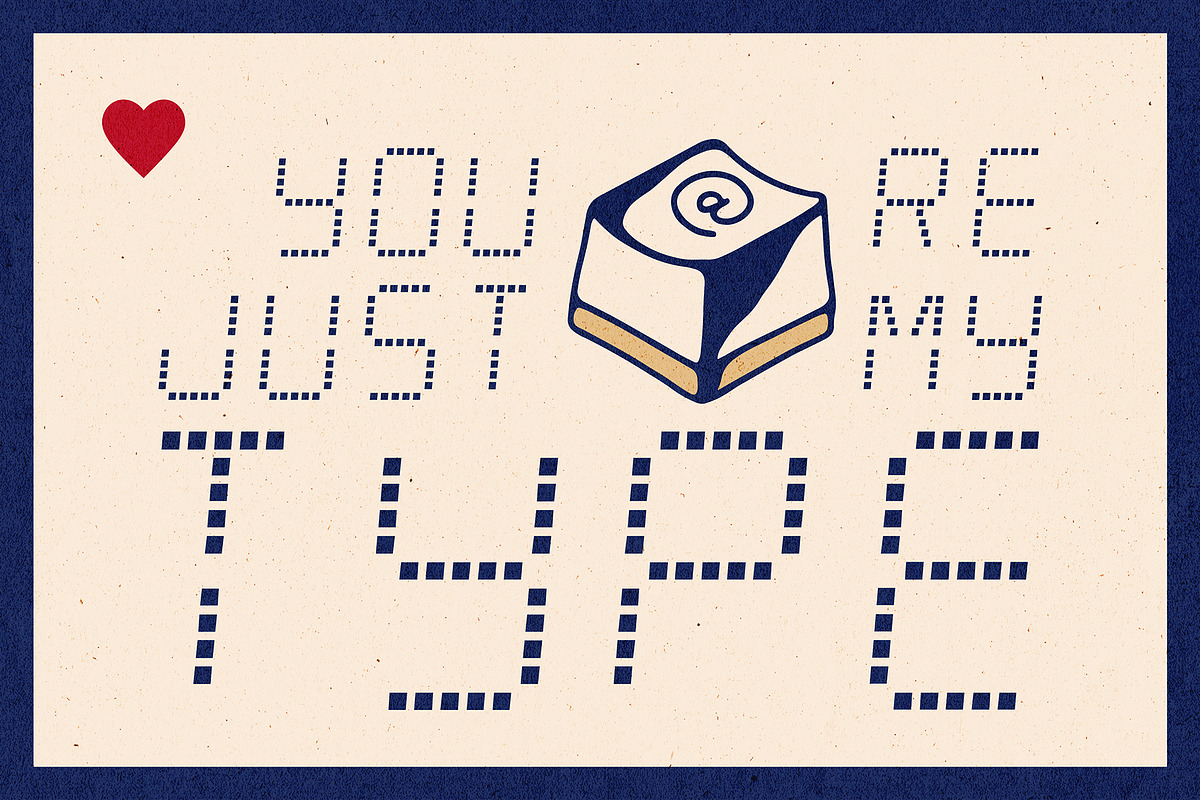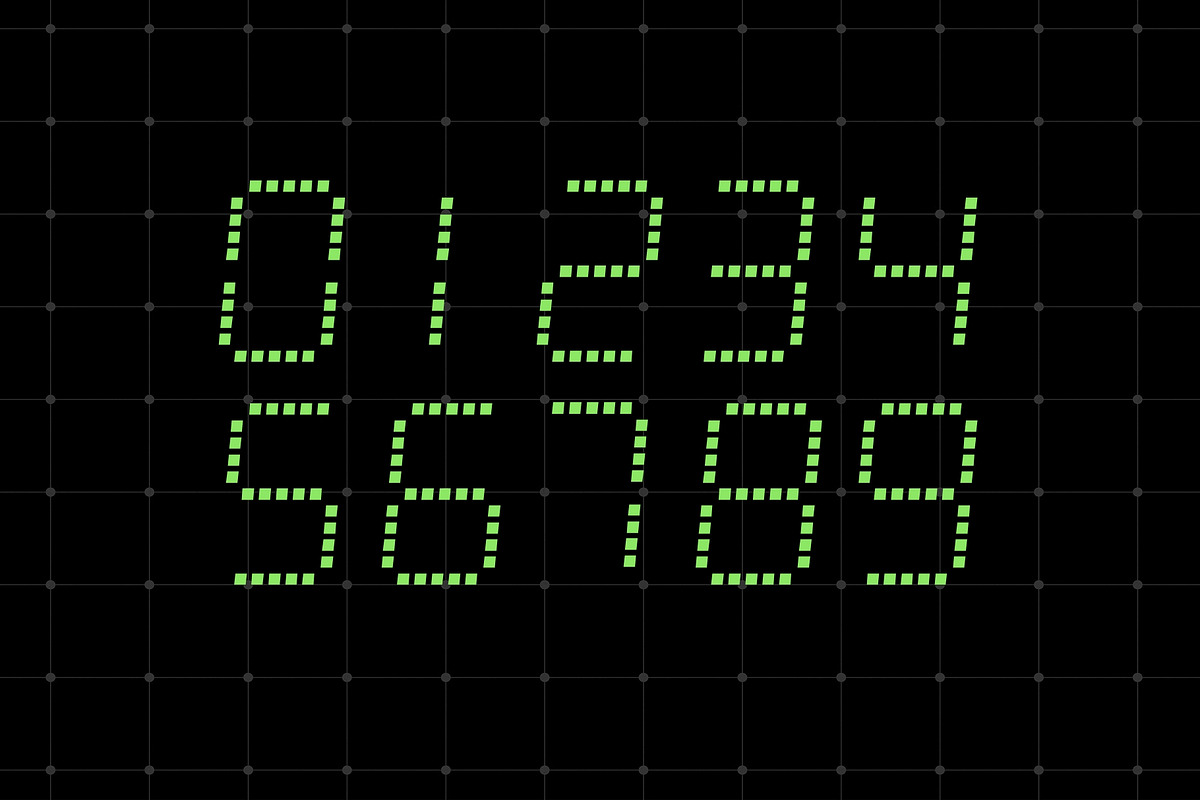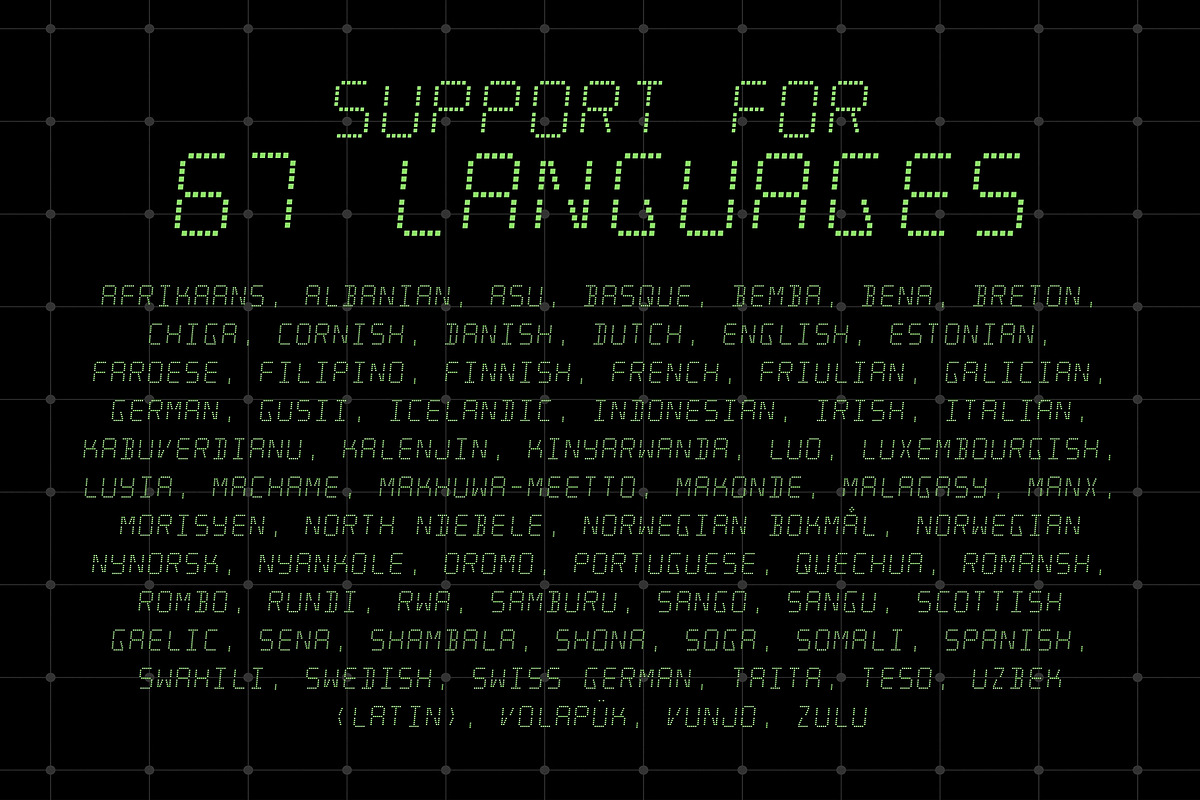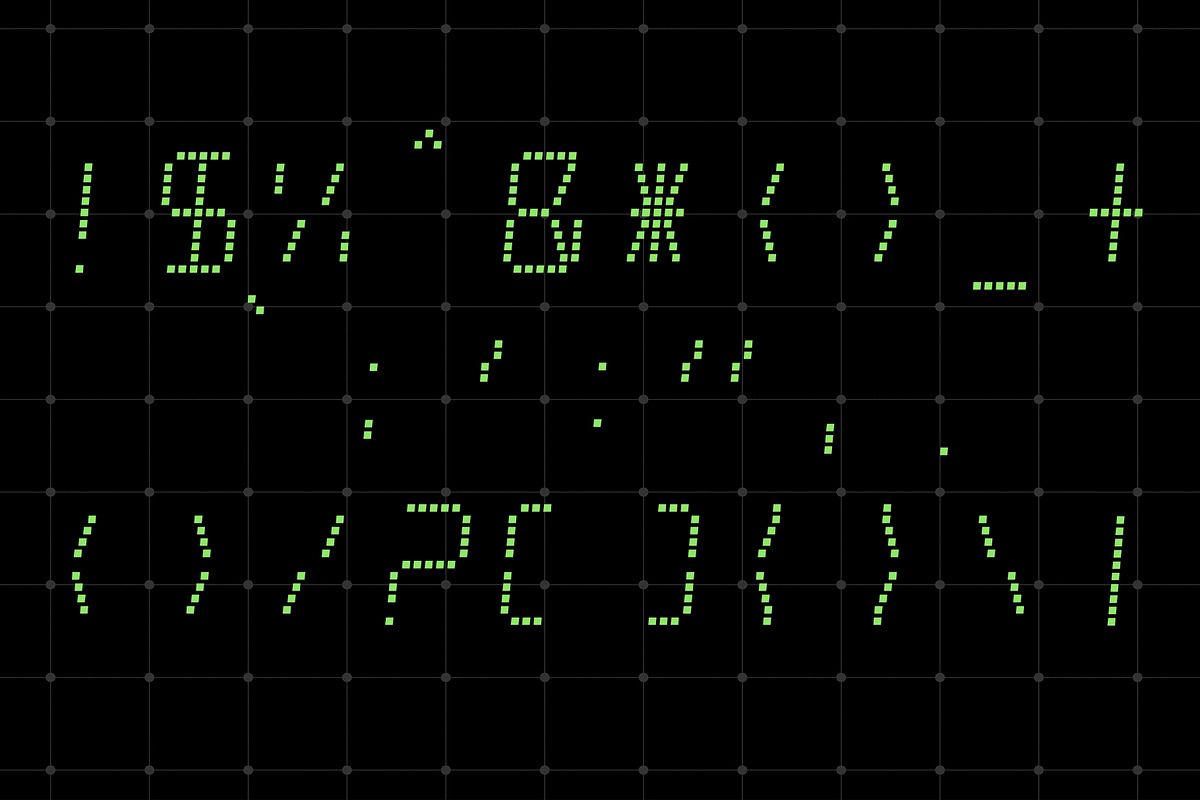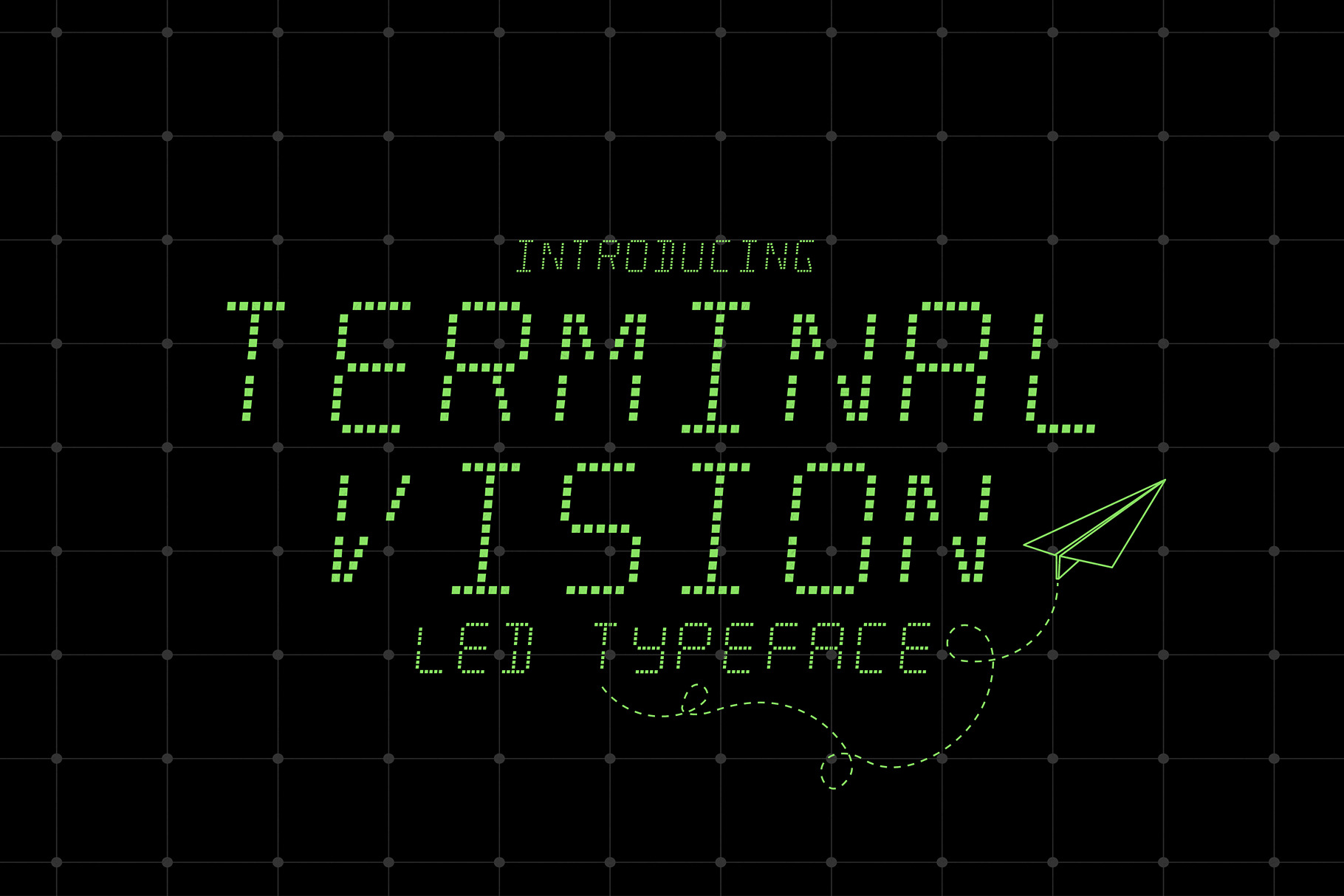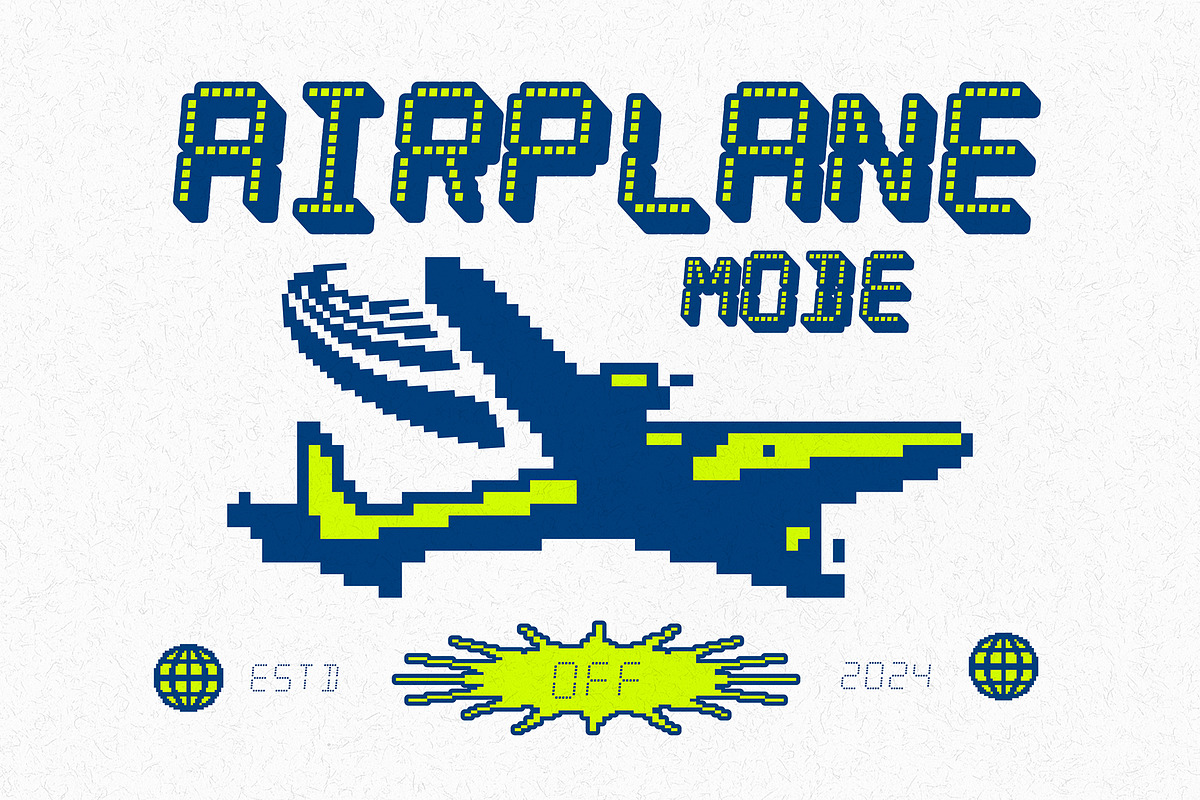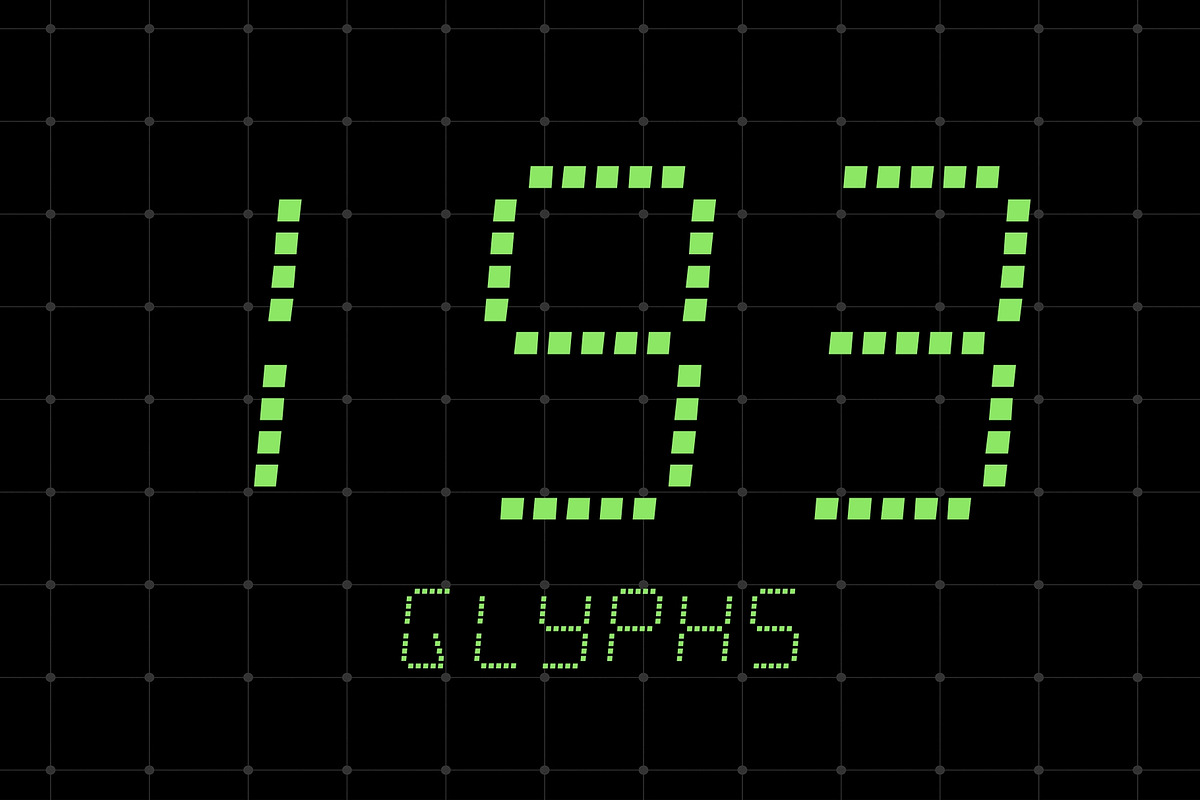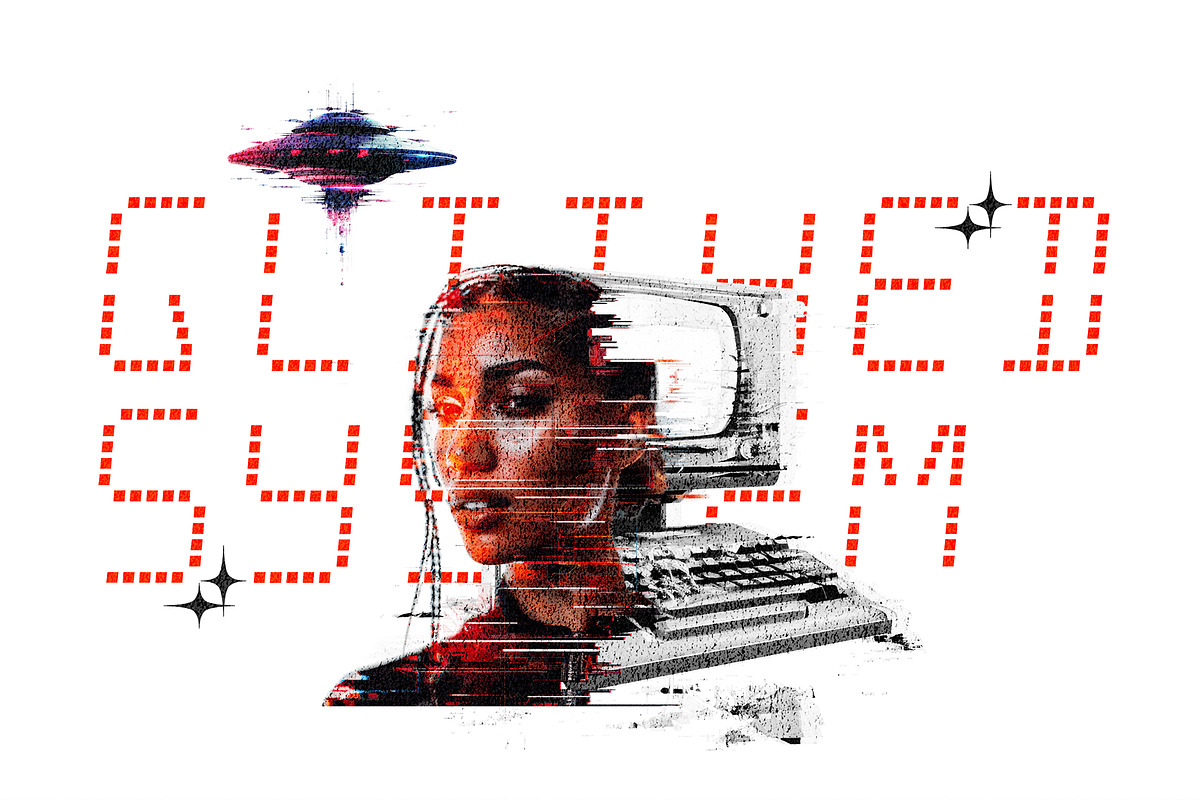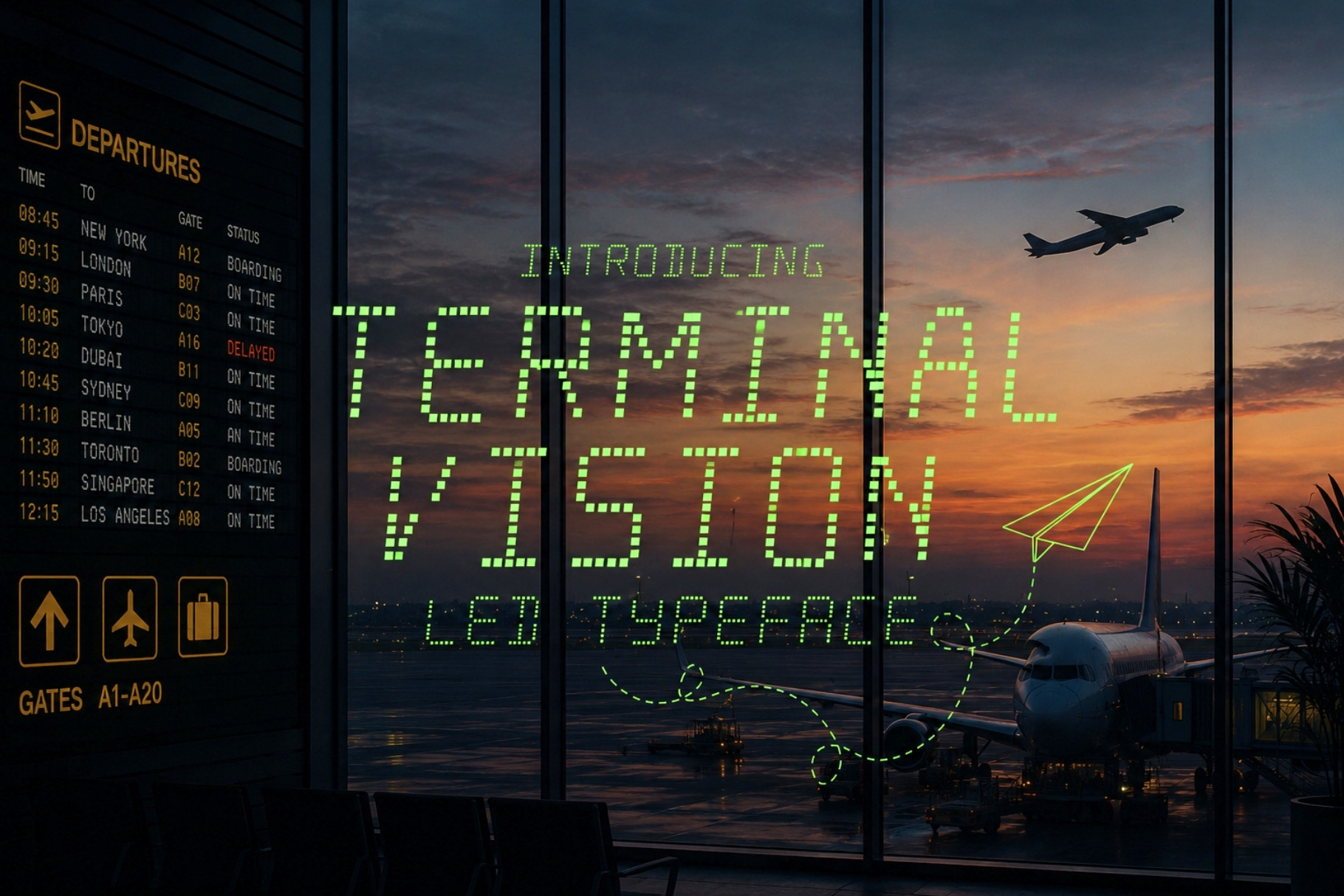
Terminal Vision - LED Typeface
Terminal Vision is a bold, LED-style typeface that captures the clean, calculated look of airport terminals, digital clocks, transit signage, and vintage computing displays. Designed with absolute clarity and geometric finesse, this font delivers a streamlined, high-tech aesthetic perfect for modern applications with a retro backbone.
Whether you're building sleek airport-themed visuals, LED-style posters, system dashboards, or futuristic branding, Terminal Vision brings pixel-perfect energy to every design.
Ideal for:
✈️ Airport and transit-style signage
💡 LED and digital display graphics
🖥️ Tech, computing, and interface design
🗞️ Posters, branding, and editorial layouts
🔧 Industrial, sci-fi, and system-based visuals
With its modular structure and striking simplicity, Terminal Vision is your go-to typeface for projects that need clarity, confidence, and a hint of nostalgic tech charm.
From gate signs to glitch art, this font runs the system.